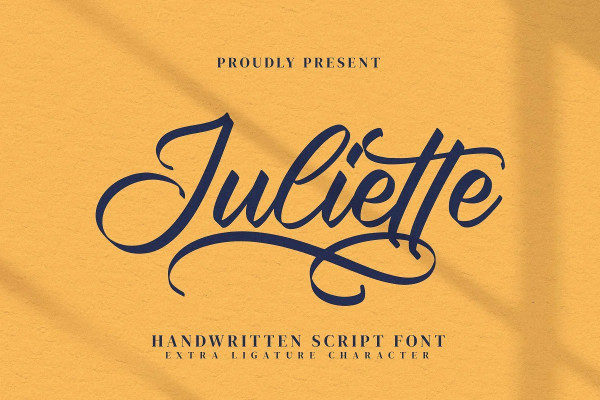
Juliette Script Typeface
Juliette Script Font – Handwritten Script Font, from Integritype Studio, is a premium Handwritten Script Font, perfect for any project like: logos, branding projects, homewares designs, product packaging, mugs, quotes, posters, shopping bags, t-shirts, covers books, business cards, invitation cards, greeting cards, labels, photography, watermarks, special events and all your other luxury projects that require a premium taste.